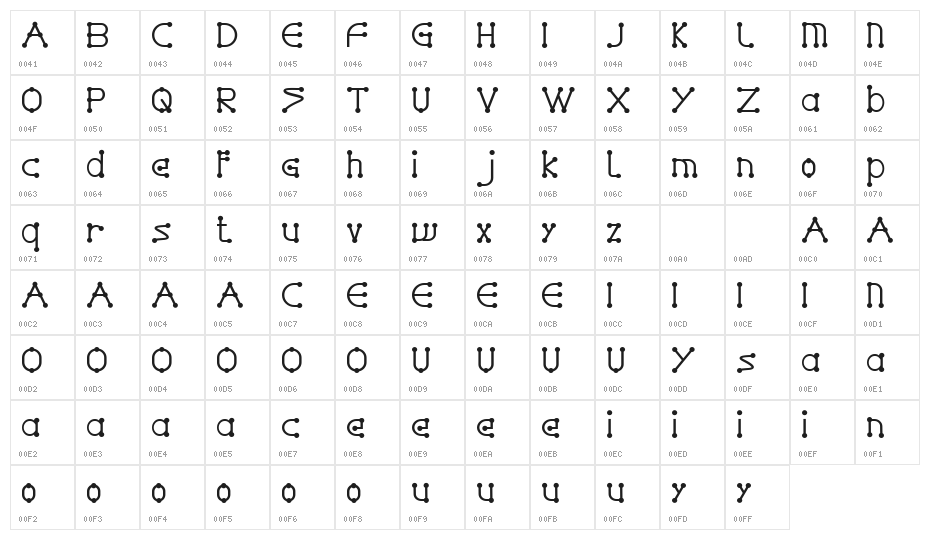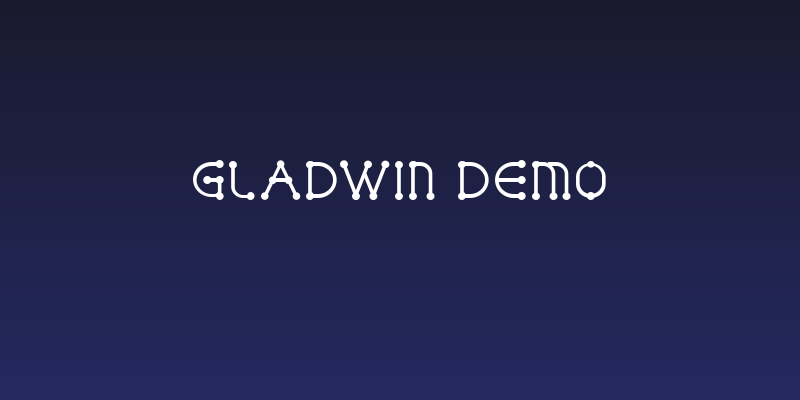
GLADWIN DEMO Font
GLADWIN DEMO Description
This font features a unique and playful design, characterized by its dotted connections between strokes. Each letter is formed with a series of dots that create a sense of movement and rhythm. The overall appearance is modern and innovative, making it stand out in any design. The uppercase and lowercase letters maintain a consistent style, with rounded edges and a uniform dot size. This font is ideal for creative projects that require a distinctive and eye-catching typeface.
| Proposed Projects | Perfect for children's books, creative posters, playful branding, and modern art projects. |